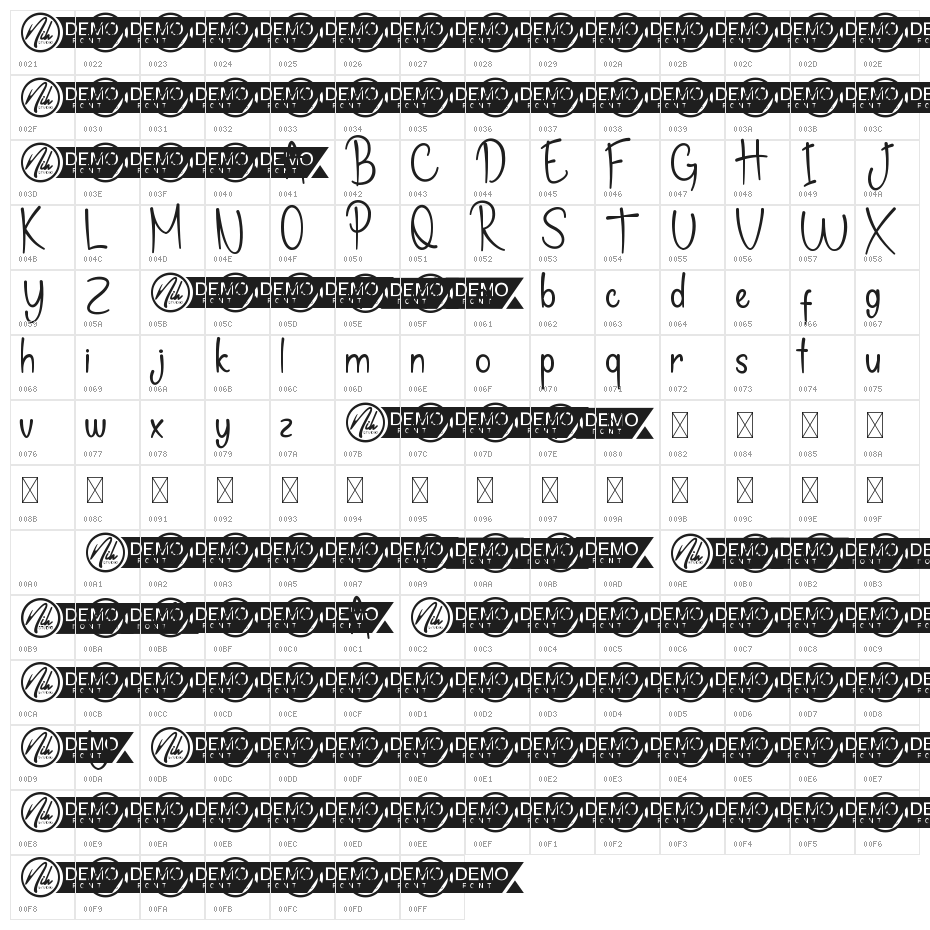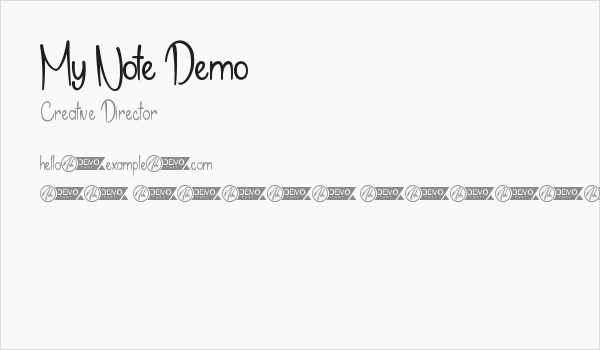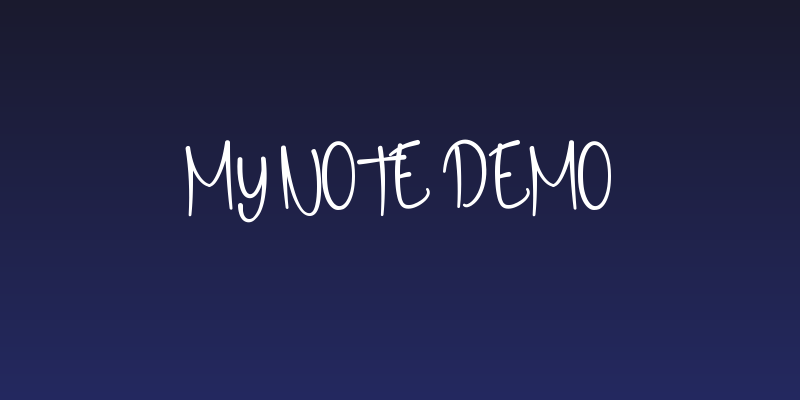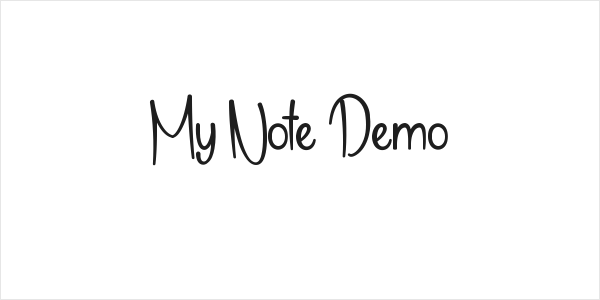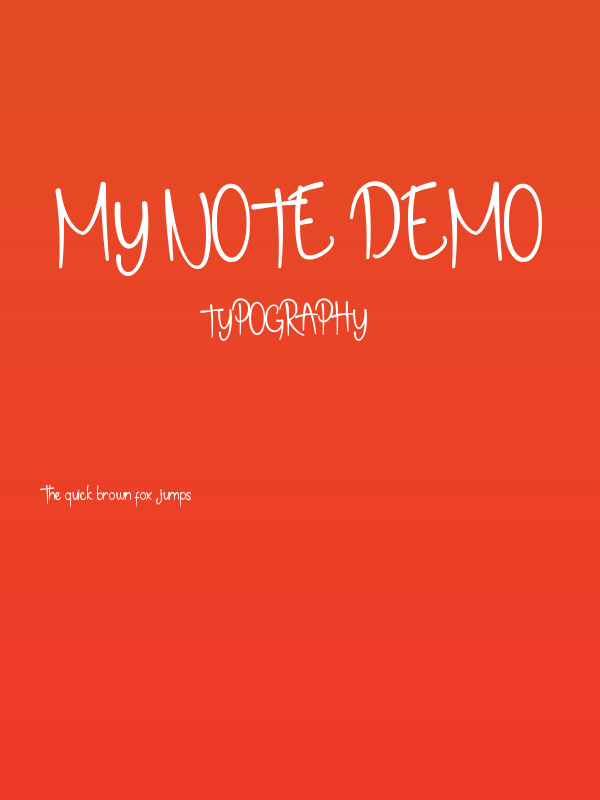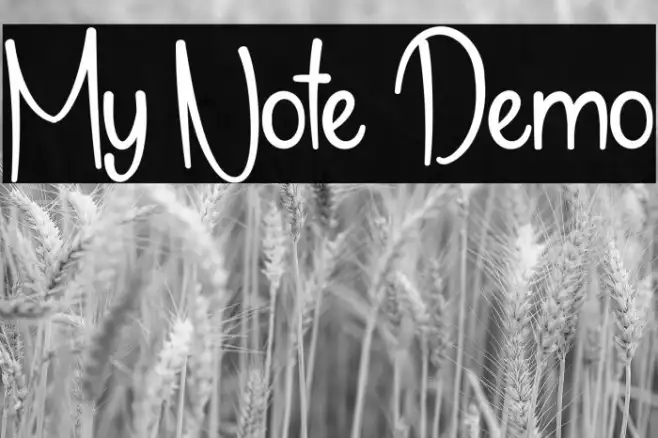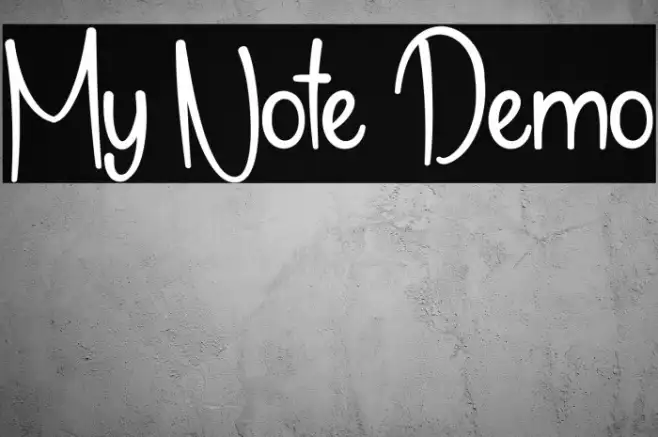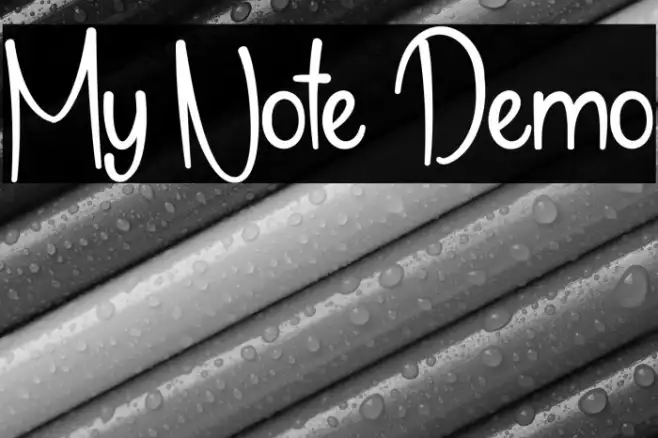
My Note Demo Font
My Note Demo Description
This font features a playful and informal handwritten style, characterized by its tall, narrow letters with a slight slant. The uppercase letters are distinct with exaggerated curves and loops, giving a whimsical feel. The lowercase letters maintain a consistent height and flow, enhancing readability while retaining a casual appearance. The numbers and special characters are designed to match the overall style, ensuring a cohesive look across all text elements. This font's unique personality makes it suitable for creative and informal projects.
| Proposed Projects | Ideal for greeting cards, children's books, playful branding, and creative social media graphics. |